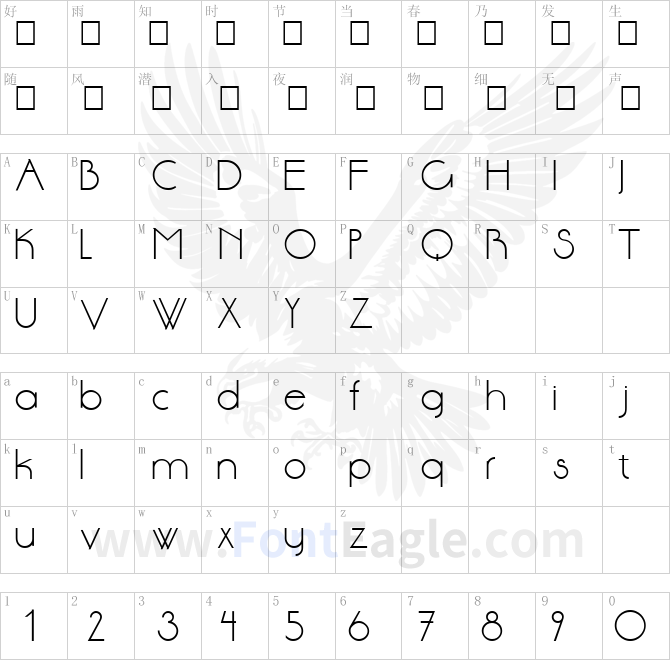
- Font name:DS StandartCyr
- Font Subfamily ID:DS StandartCyr
- Font Full Name:DS StandartCyr
- Font Version:1.0 D-Studio;Moscow;1998;Dubina Nikolay
- Postscript:DSStandartCyr